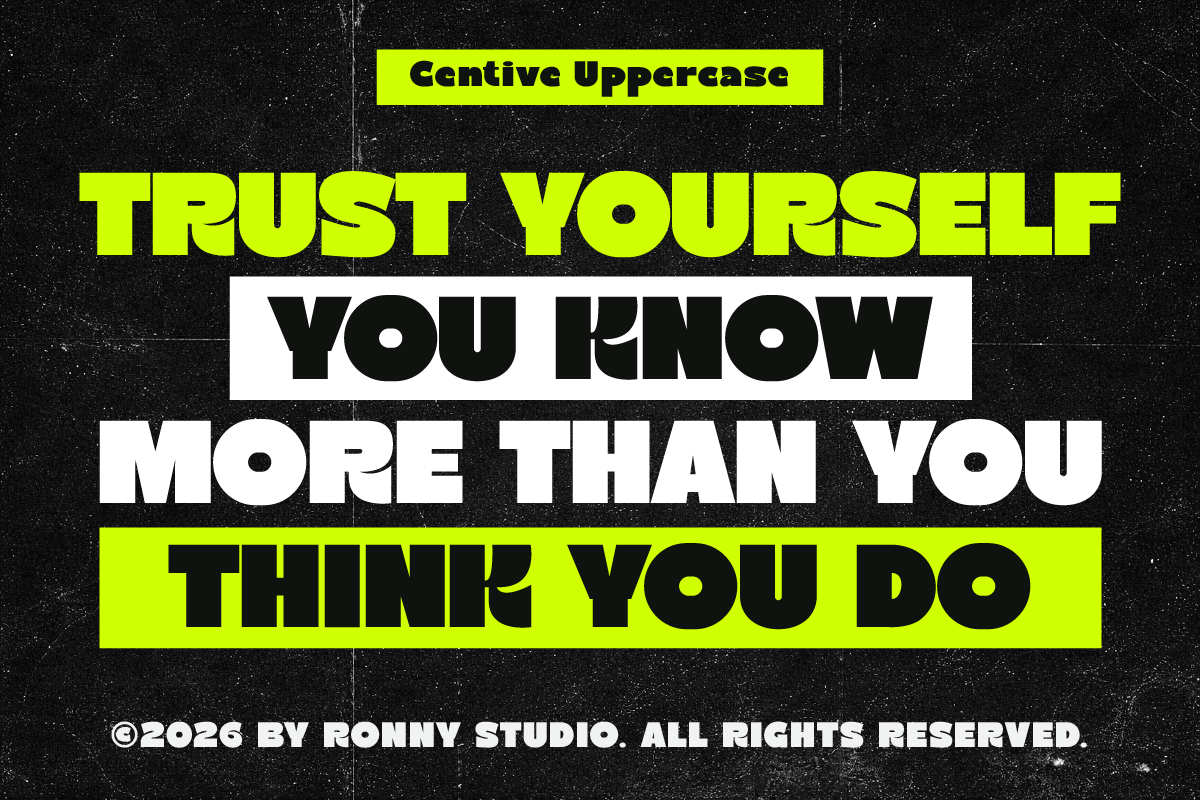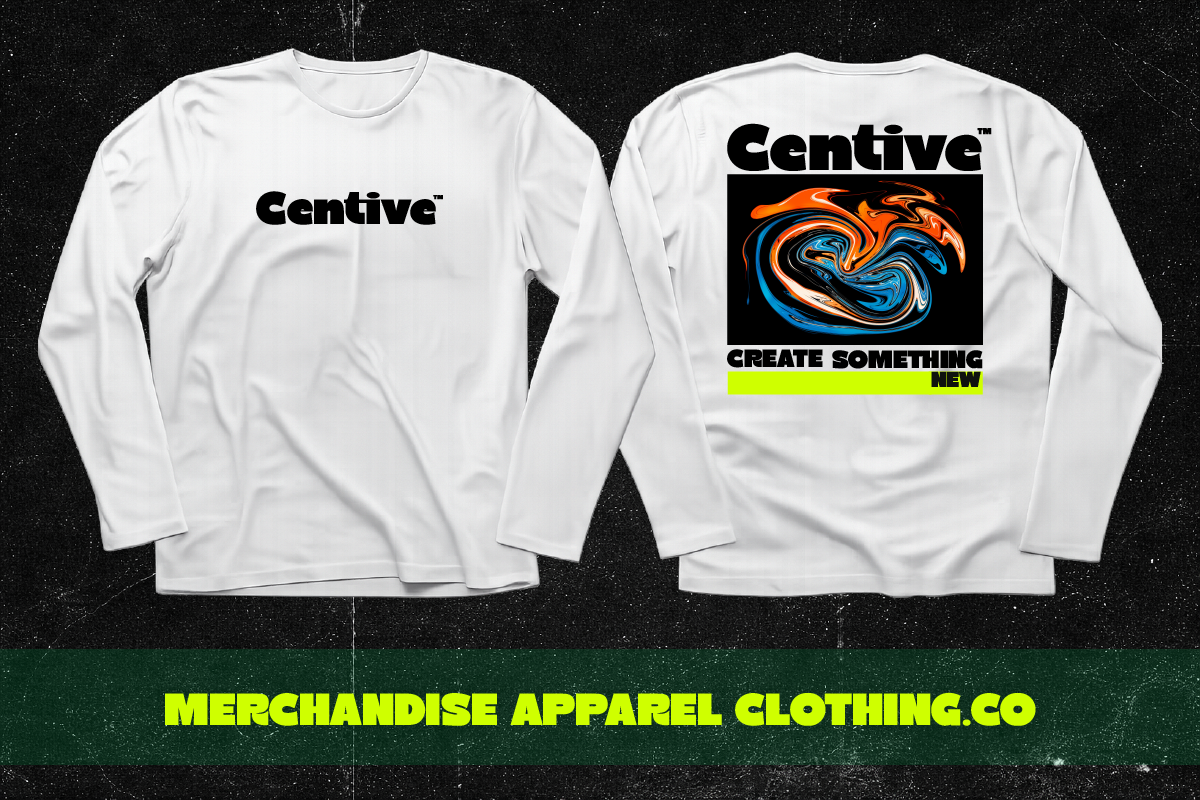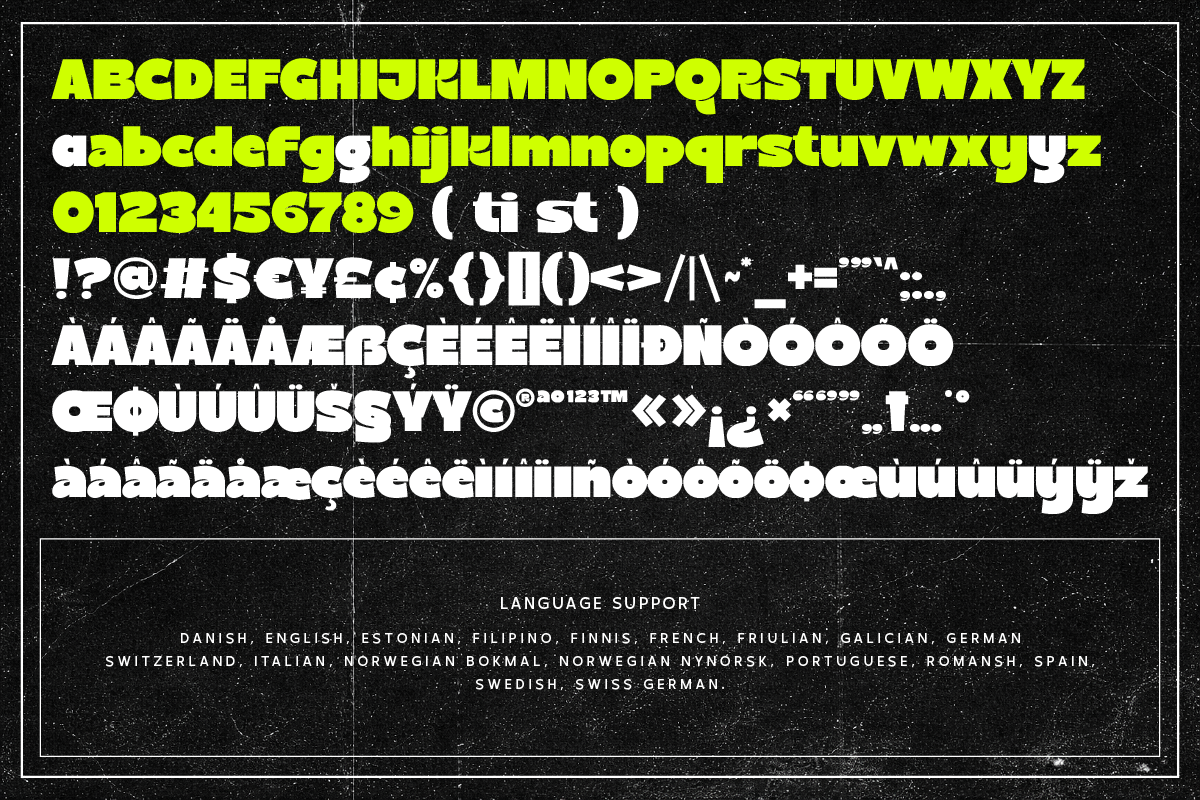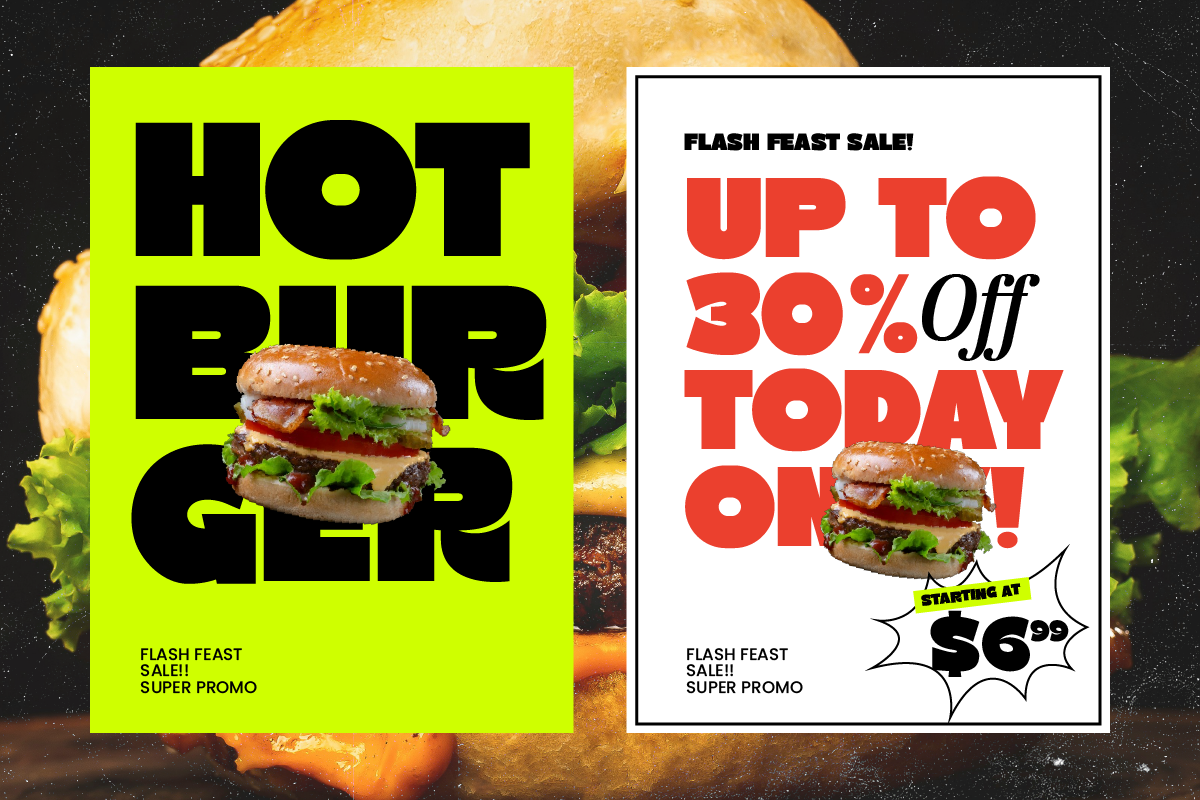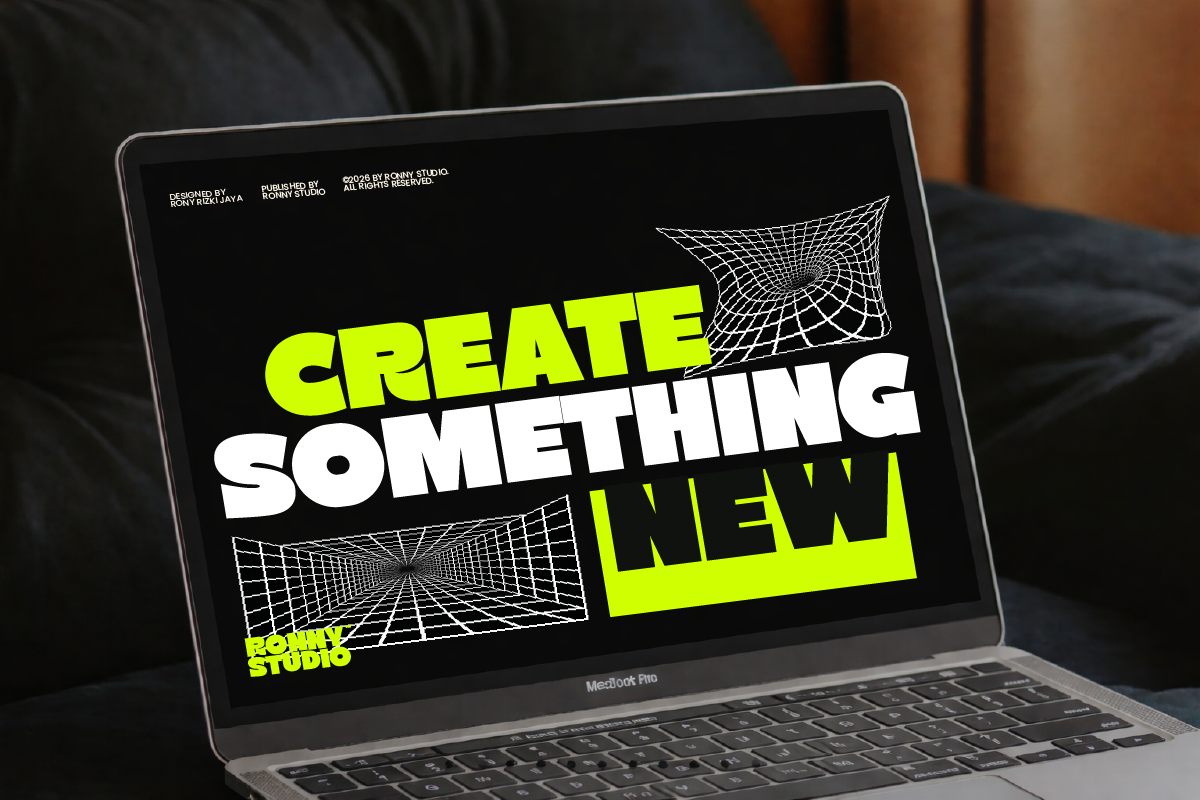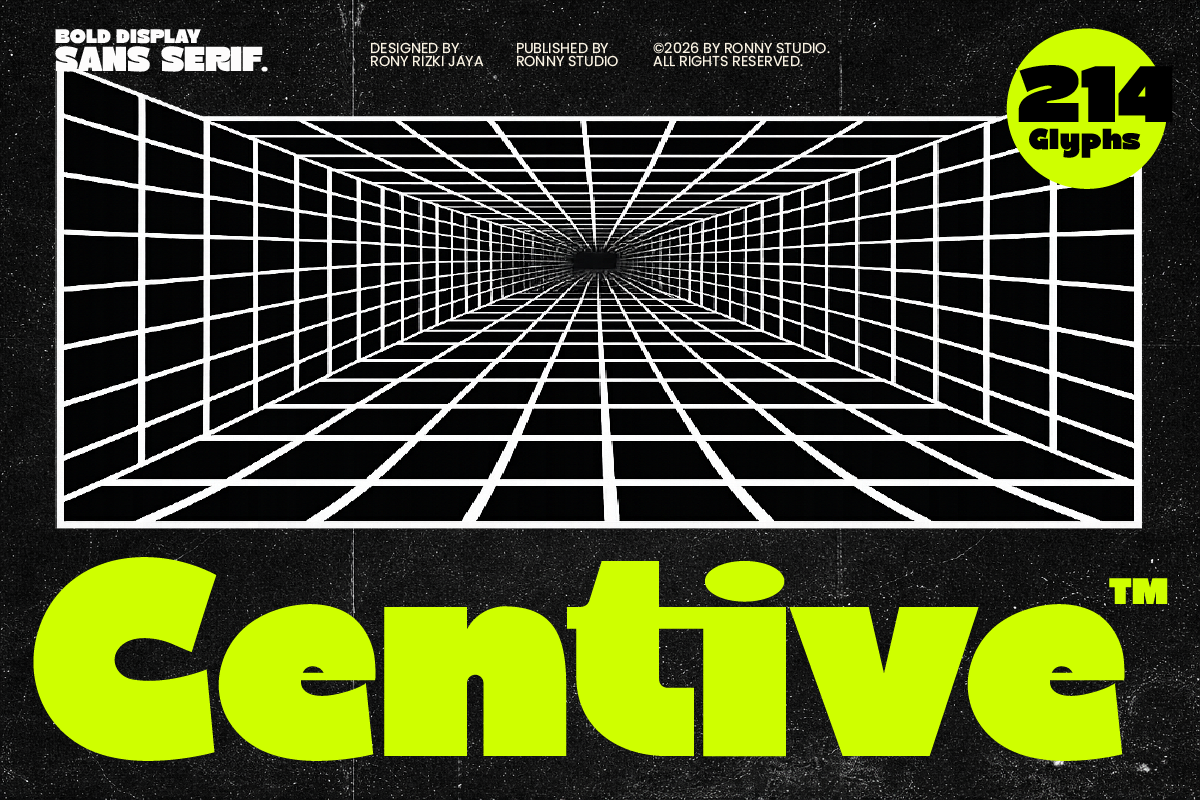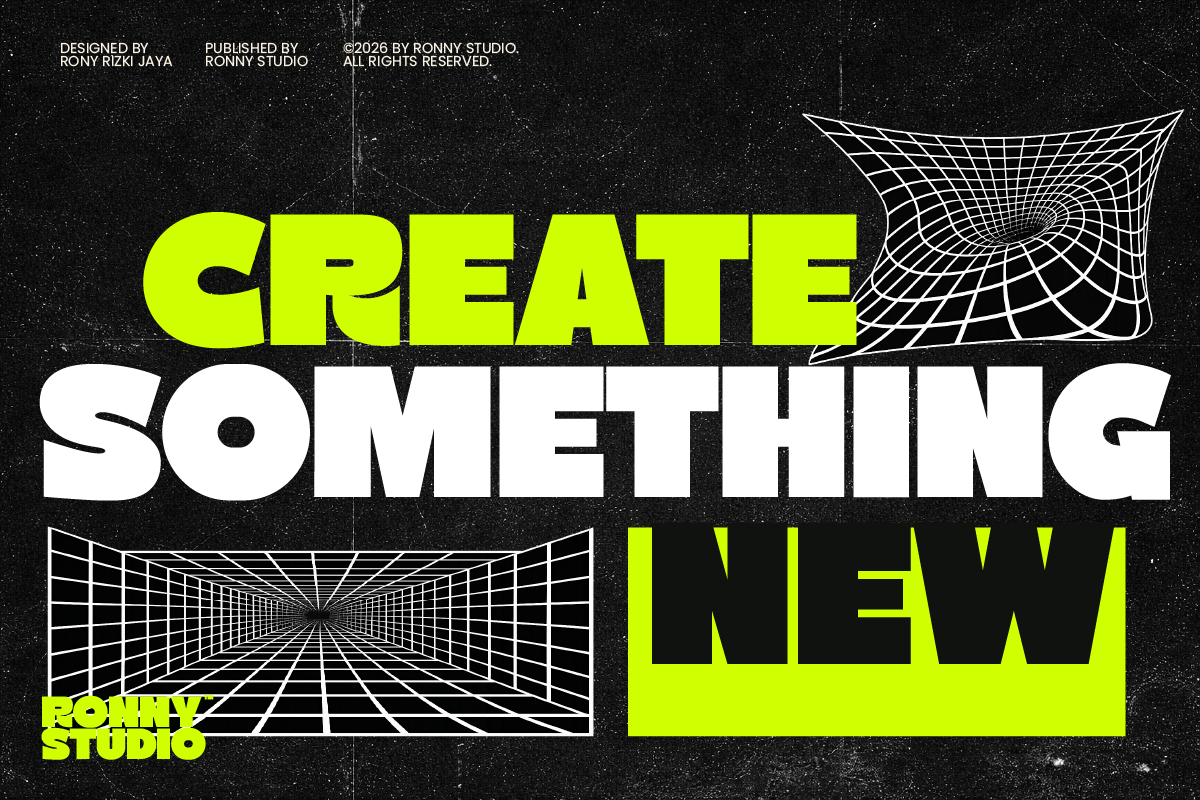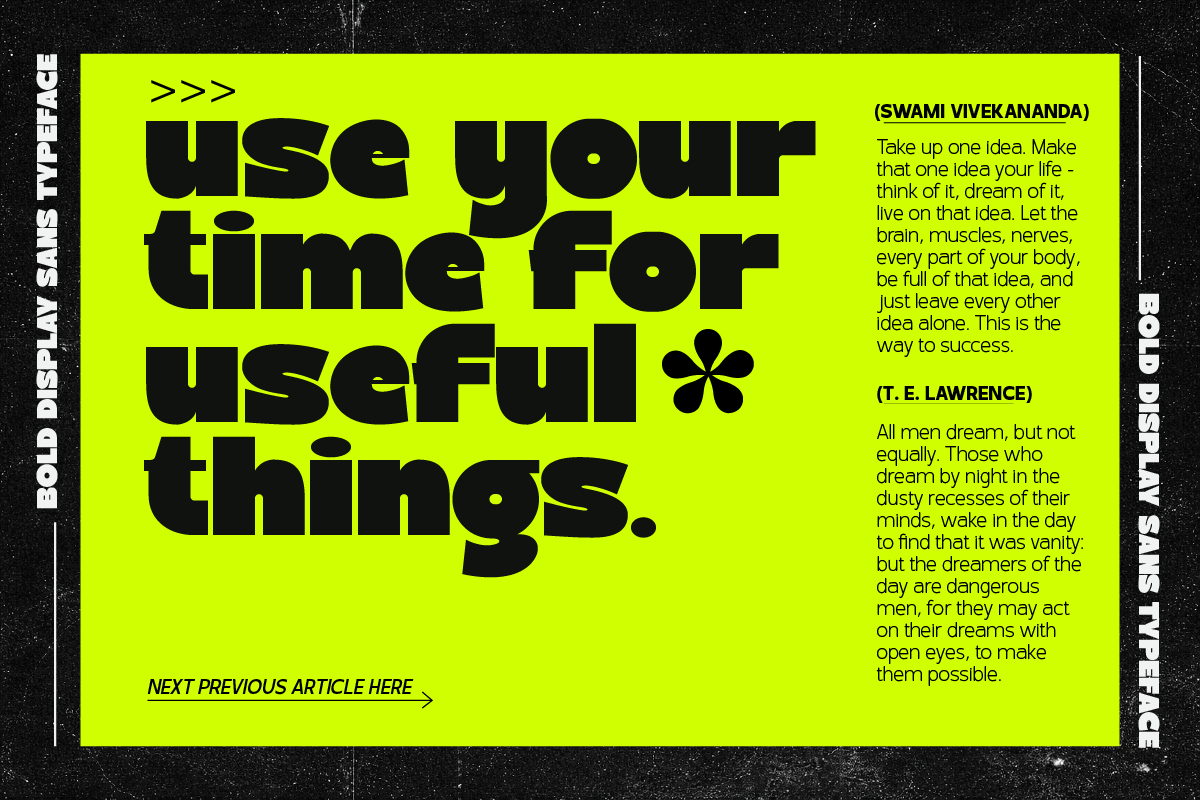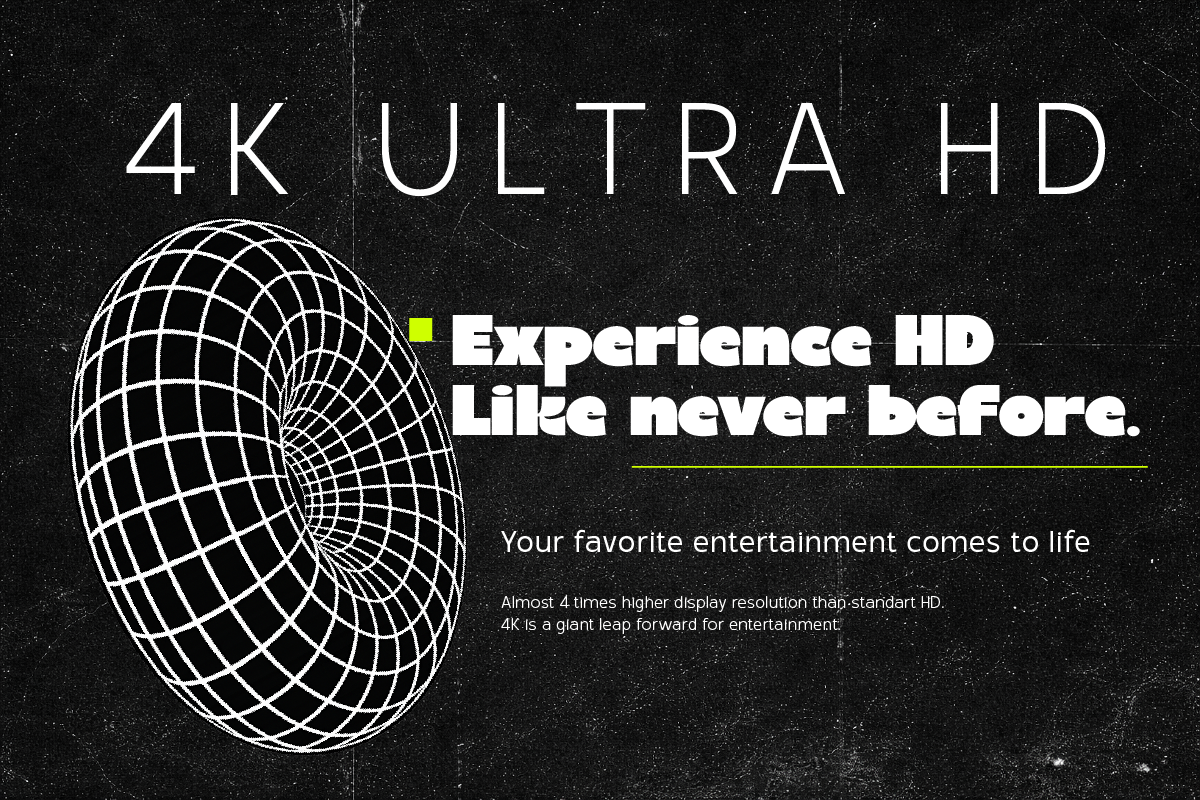
Centive Bold Futuristic Display Font
Centive is a bold futuristic display font designed for powerful headlines, branding, posters, technology projects, gaming graphics, fashion, and modern visual identities.
Built with strong geometric forms and a heavy visual presence, Centive combines a clean sans serif structure with a futuristic character. Its bold proportions make it ideal for typography that needs to stand out.
Whether you're creating a futuristic brand identity, sci-fi poster, gaming artwork, album cover, or eye-catching social media graphic, Centive brings a sharp and powerful look to your designs.
Centive is made for bold visual identities, futuristic concepts, and designs that demand attention.